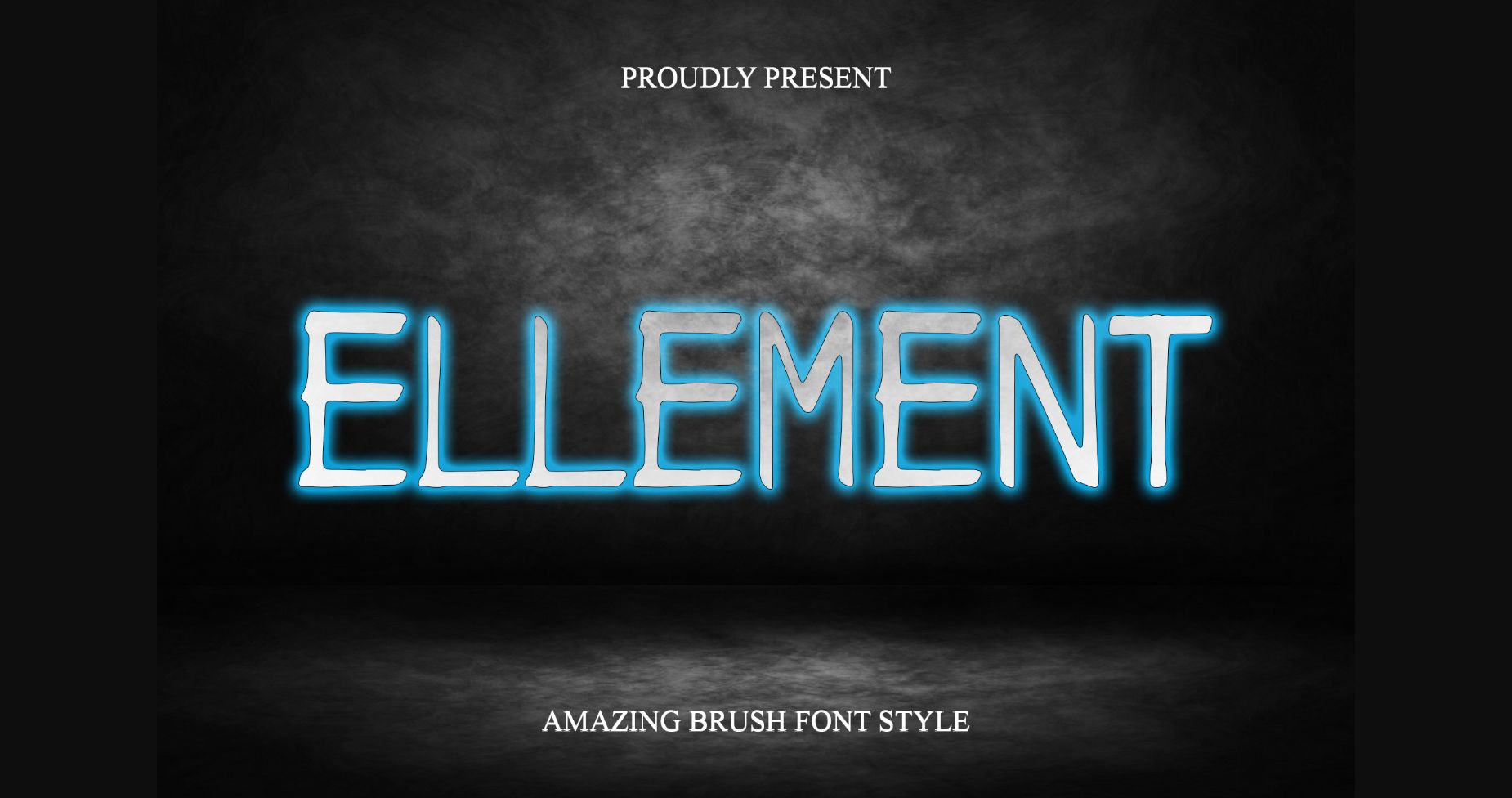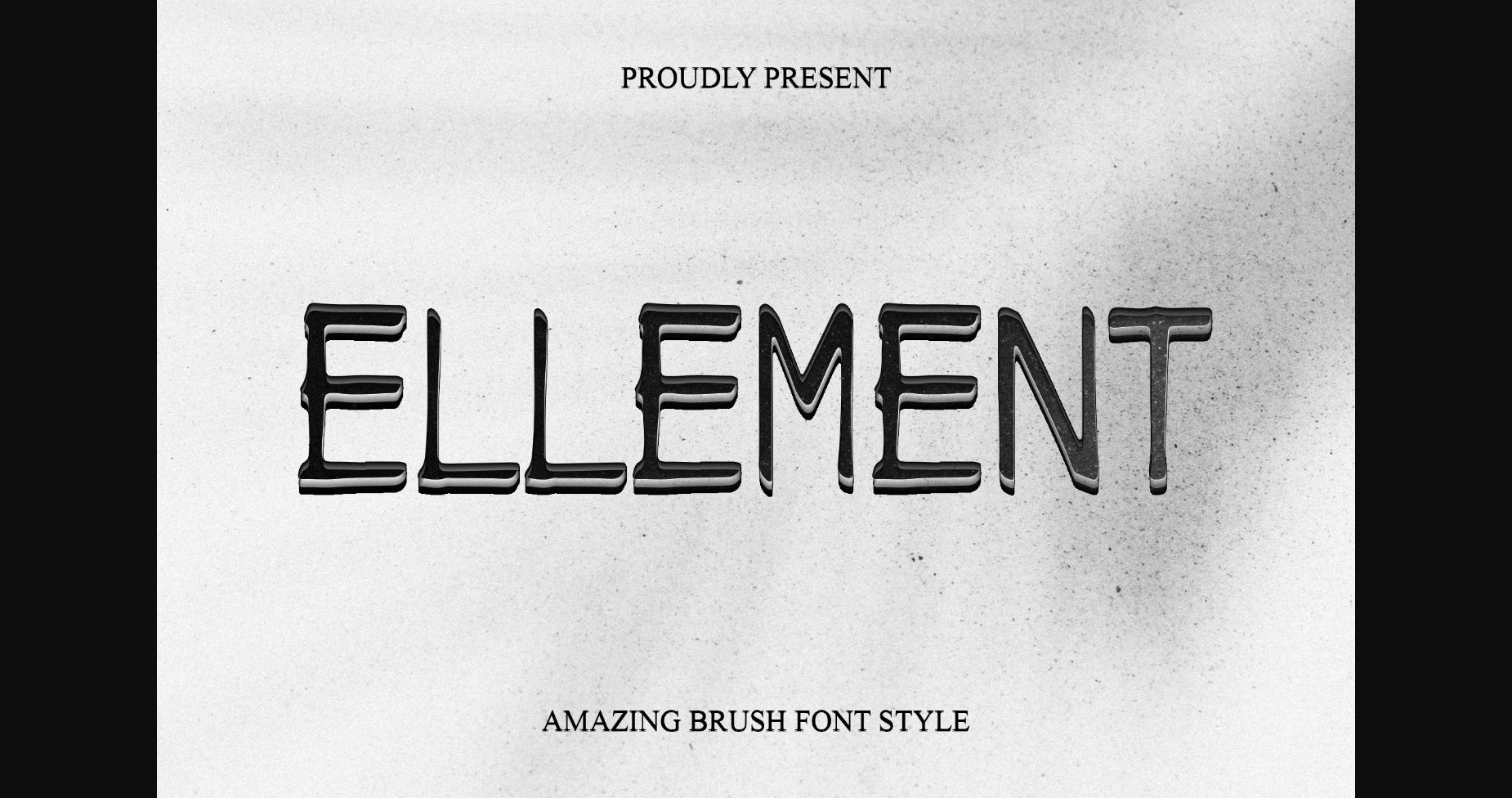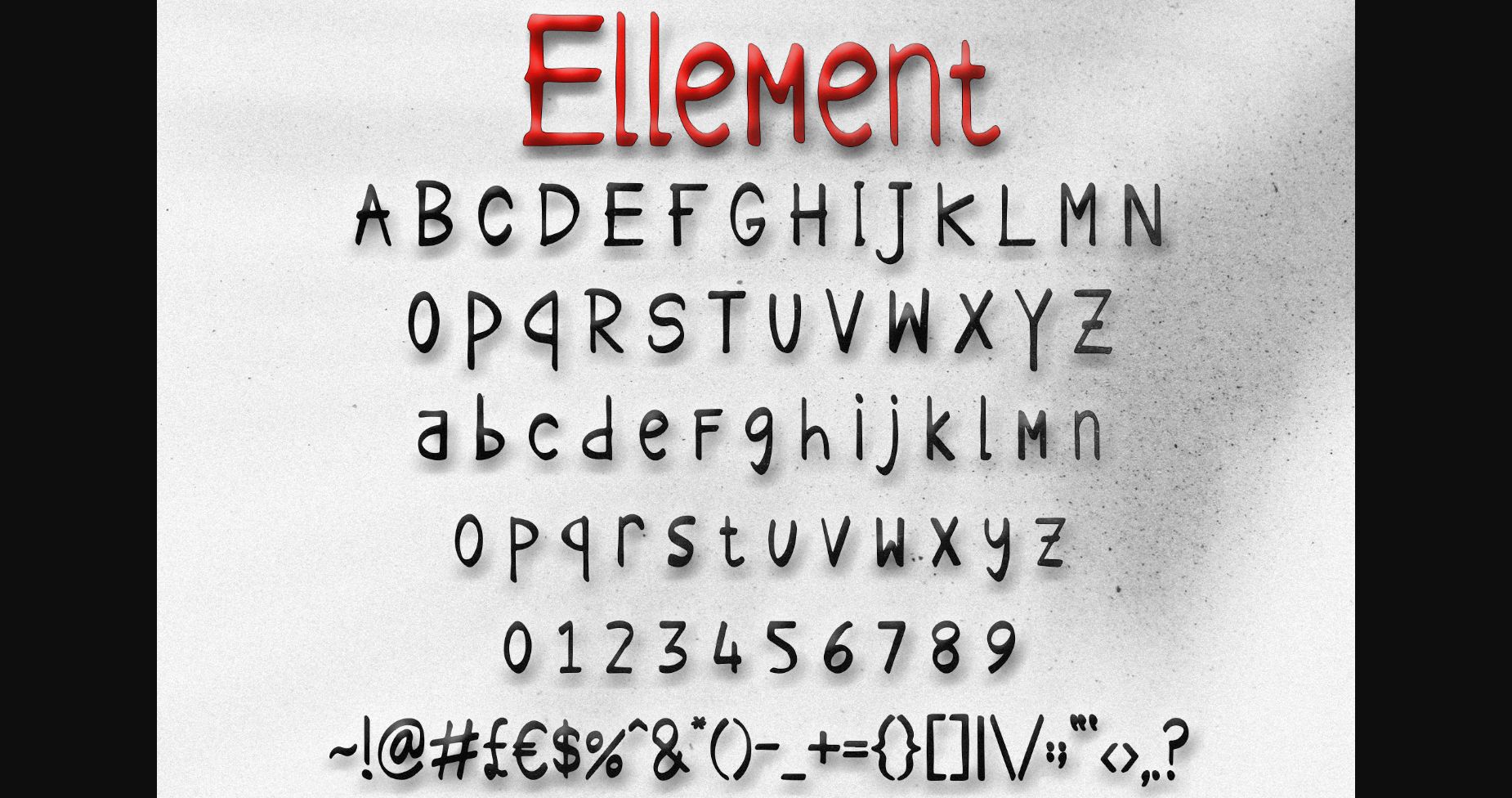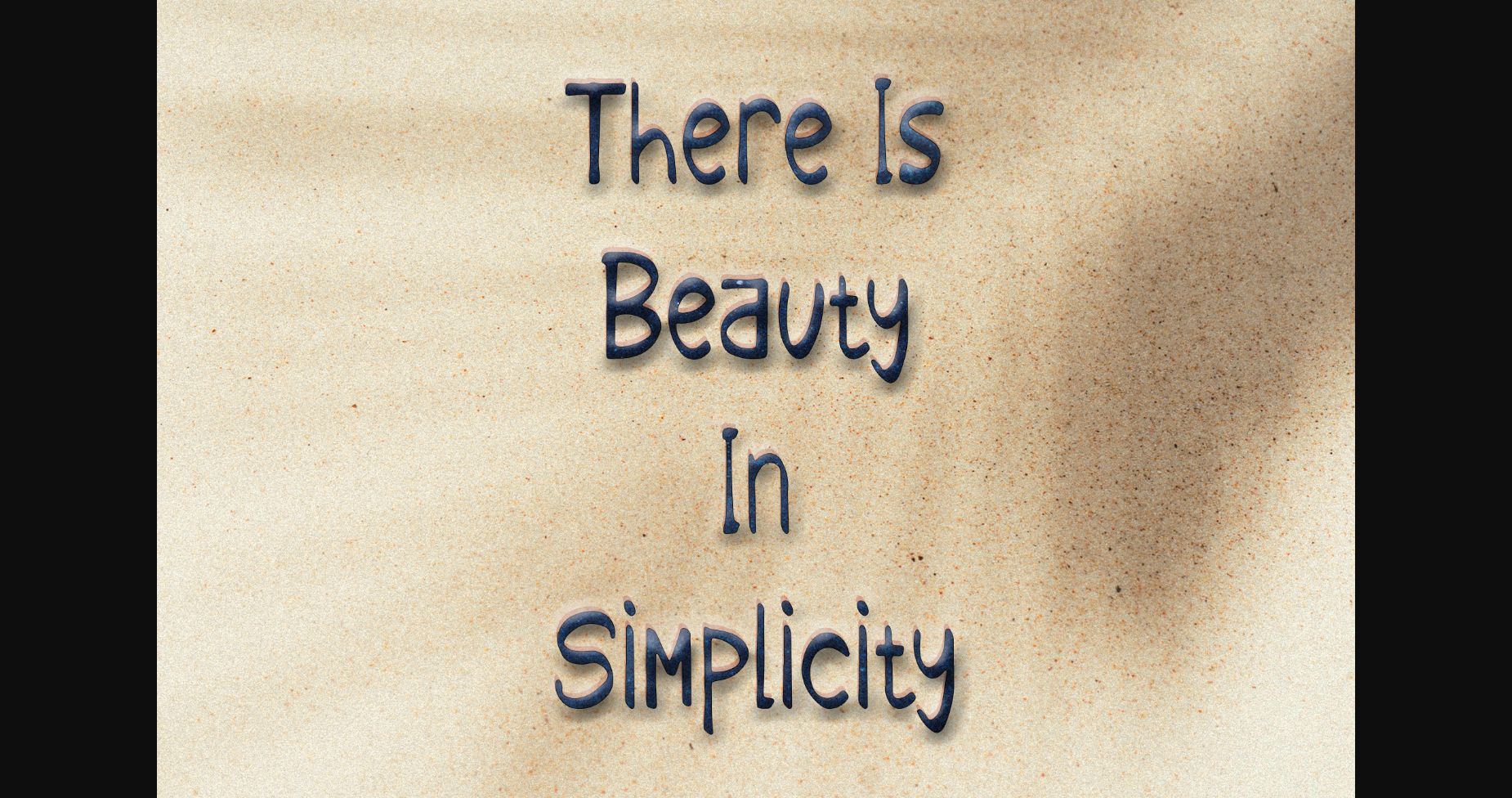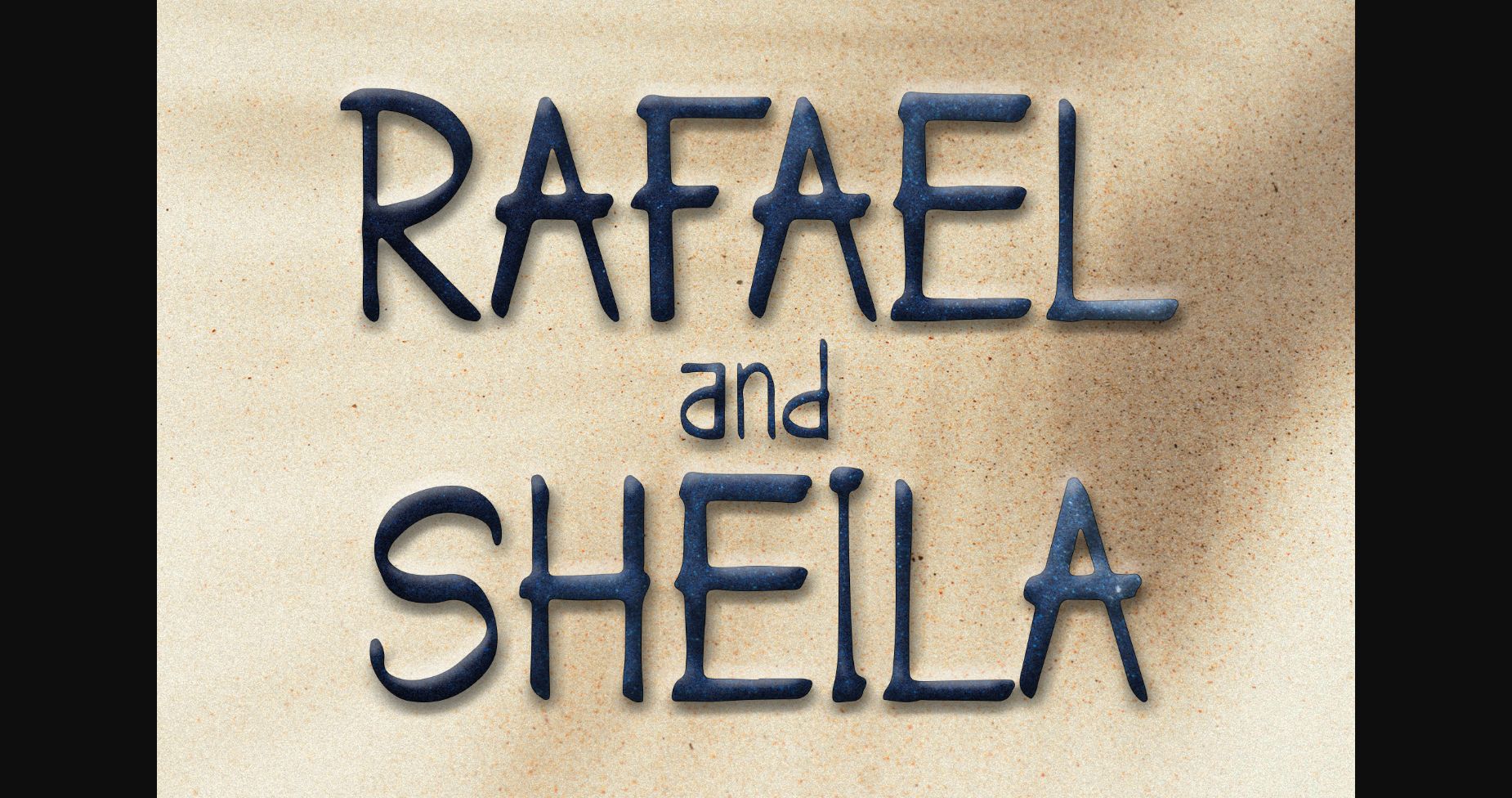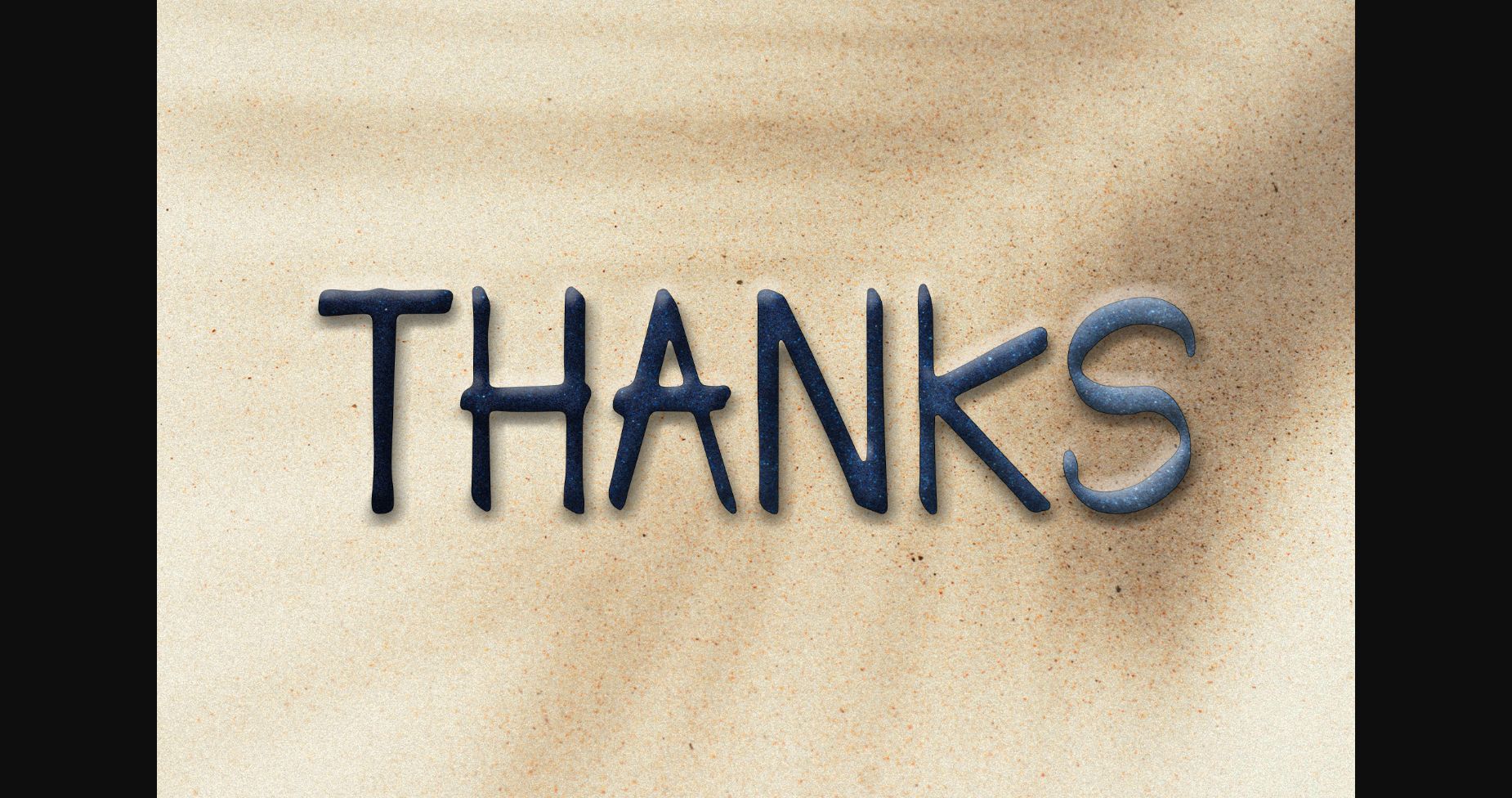
Ellement Font
About Ellement Font
Ellement is a simple and clean sans serif font. Whether you’re looking for fonts for banner, wedding card or anything you can imagine, this font will turn any creative idea into a true piece of art!